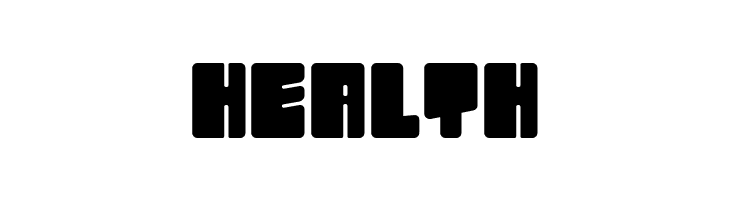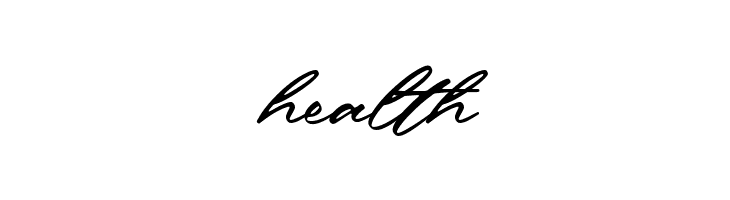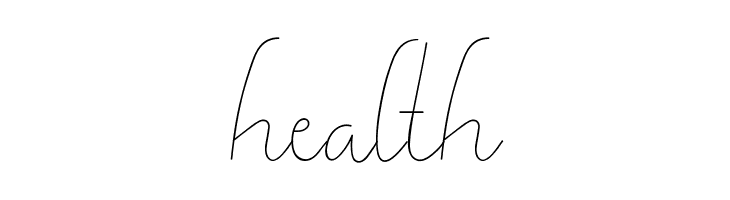
A bold, playful font with rounded, hand-drawn characters.
A playful, handwritten font with flowing, cursive-like strokes and a modern aesthetic.
A playful, bold font with quirky, rounded characters.
A stylish and elegant handwritten script font with flowing, connected letterforms.
A whimsical, hand-drawn font with a magical, gothic flair.
A bold, blocky font with a playful, retro-modern style.
A dynamic and elegant script font with flowing, cursive letterforms.
A bold, playful font with chunky, rounded characters.
A modern, elegant cursive font with fluid connections and graceful curves.
An elegant script font with intricate loops and swirls, perfect for sophisticated designs.